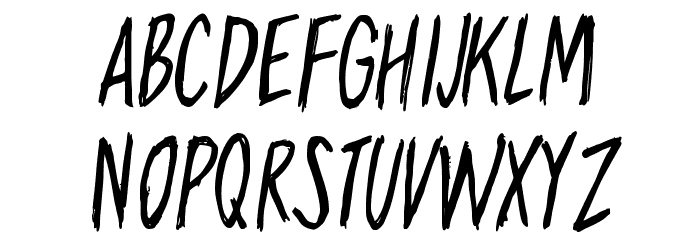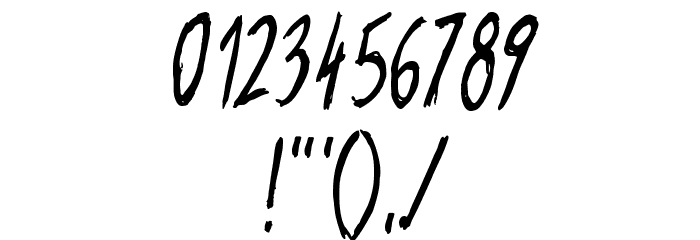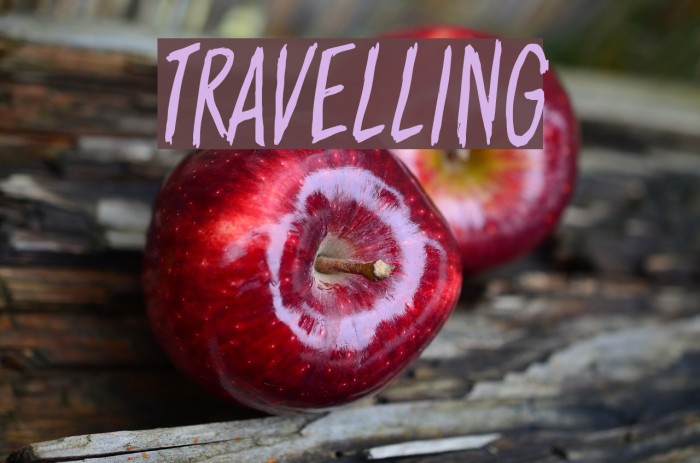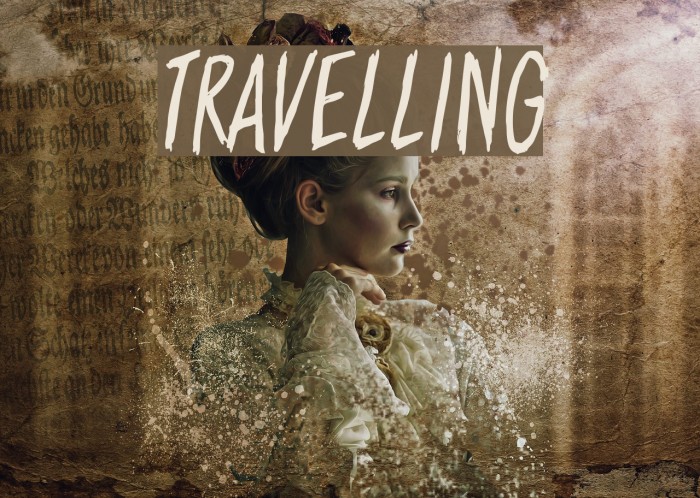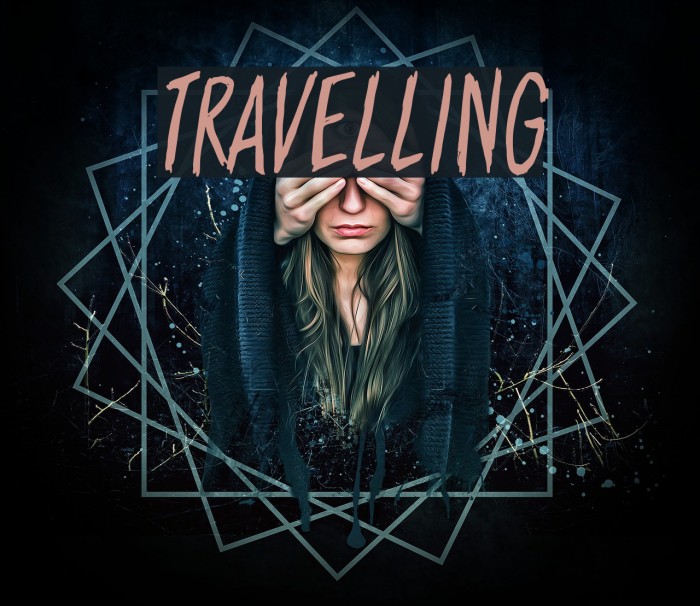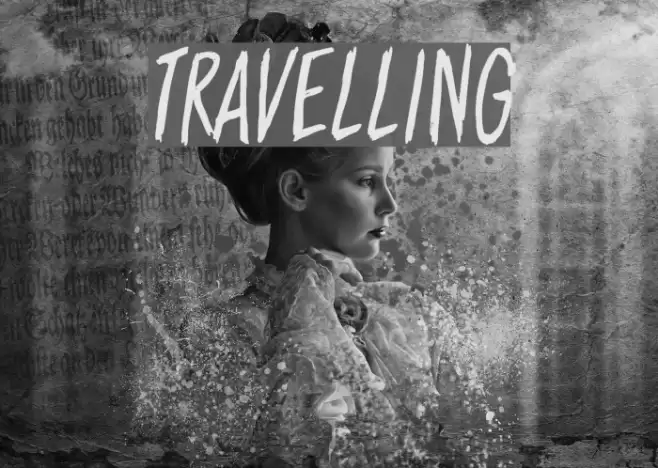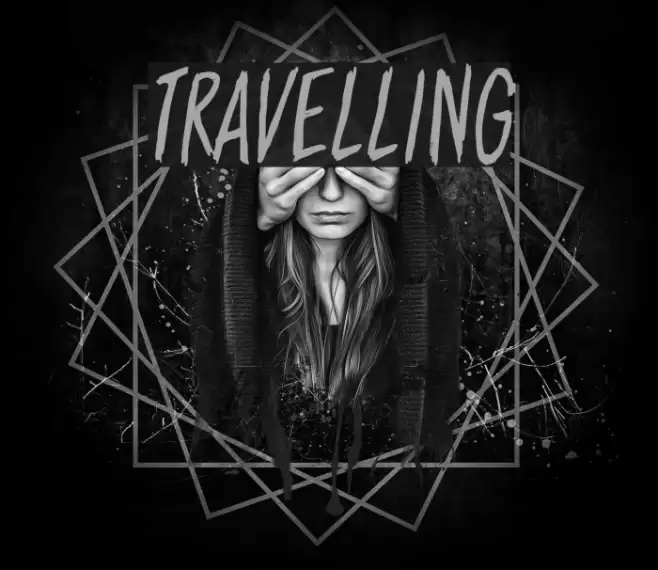
Travelling Font
This font features a dynamic and energetic brush script style, characterized by its bold and expressive strokes. The letters have a hand-painted appearance, with varying thicknesses that add a sense of movement and fluidity. The uppercase and lowercase letters maintain a consistent style, with slightly slanted forms that enhance the casual and informal feel. The numbers and special characters are designed to match the lively aesthetic, making them suitable for creative and artistic projects. The overall impression is one of spontaneity and creativity, perfect for designs that require a personal touch.
A bold and expressive brush script font with a hand-painted look.
- Proposed Projects: Ideal for branding, posters, invitations, and any project that benefits from a personal and artistic touch.